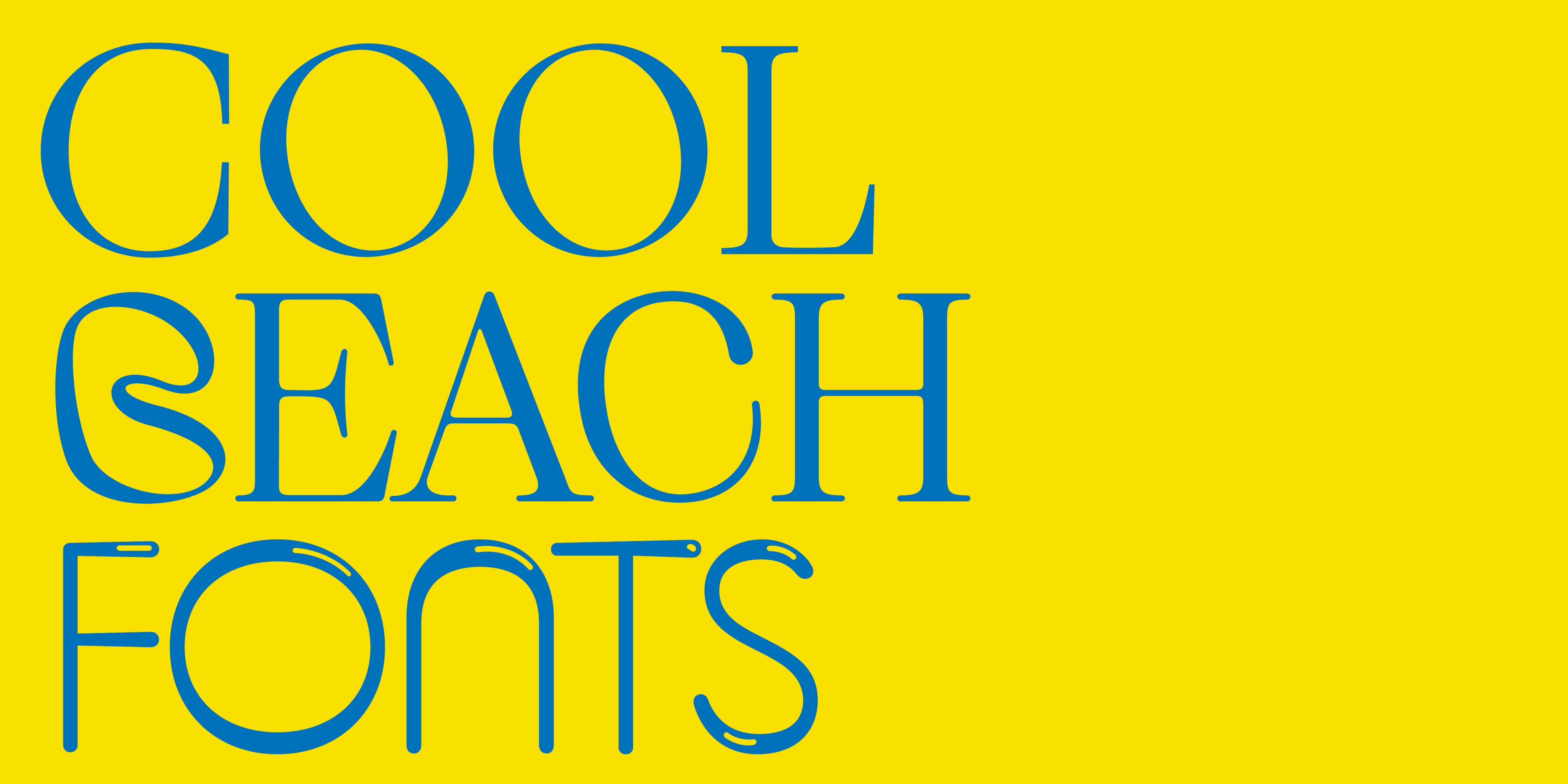
Summer means well in 2023—and so are the fonts that hit the market this season. Let’s check out cool new beach fonts you can use for fun designs this year.
From thin to super bold, there are no limits when it comes to cool beach fonts. Here’s how to make different font weights work for you and have them contribute to what you’re aiming to communicate.
Modern summer beach fonts
Kijs has a cool vintage feel—check out the letters S and i—they’re slightly slanted, which adds a unique, free spirit to this typeface. This font works best in thinner font weights for a more natural look but is also available in Bold, ExtraBold, and Black.
Bauhaus Soft is a classic serif font with rounded stems; for example, see the letter X. Text set in this typeface in a thinner font weight, maybe in all caps, looks best when aiming for a timeless, luxurious, and elegant design.
Quil ExtraLight works great in bolder weights too, but if your design goal is to look modern, chic, and cool, a thinner weight of this serif typeface with minimally cut serifs is the best choice.
A modern classic with a vintage vibe is the Bauhaus Roma typeface. This font is high-contrast, meaning it has thin and thick letter strokes. It has a rather feminine feel with an extravagant, expensive touch. The medium font weights work well for all text sizes. If you’re looking for a logotype font or headline display, try a thinner weight, like ExtraLight or Thin, to add more character and a bit of beauty magic to your design.
Bauhaus Bool is designed to work best in bold weights to convey a strong fun feel, but if used in lighter weights, this typeface has the avant-garde feel of the 1970s to it. Bool’s tips are pointed (see letters W and M), and its counters are wide open, supported by a squarish, geometric x-height.
Rounded fonts with a beach vibe
A classic type of the 1920s and revival of the 1960s is Bauhaus Bau. Letter shapes are based on clear geometrical lines with missing letter stem extensions, for example, letters a and r. Bau’s letters are rather round (letters W, M, g), making this type of font a favorite for modern and retro logo design worldwide. Bau is a great display font, headlines set in all lowercase in Bold, ExtraBold, or Black look approachable and add the concept of modularity to any design.
Similar in style to Bauhaus Bau listed above, the Vole typeface has filled-in counters that bleed into the font’s stems, giving any text a watery, inky, or stamp-like look. This type is perfect for beach designs due to its fun, likable appearance.
Bauhaus Loco reminds us of rubber water toys and pool floats. This rounded type has added cutouts for a 3d effect. The bolder the font weight, the bubblier the text. This font works well in all weights and looks extra beachy when colored differently.
Cute beach-style fonts
Skay in thinner font weights is a handwritten bubble type with rounded stems. This type only has cap letters, making it a cute headline and display font.
Bauhaus Lace is one of my favorite handwritten summer fonts because it’s still a monolinear style, making it look a little less personal and more cute / professional. A rounded version of Lace (called Lace Rounded) is available for free on 1001.com.